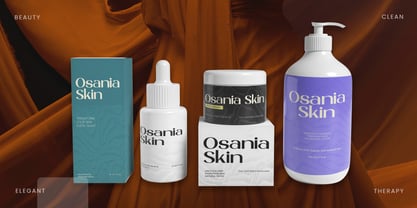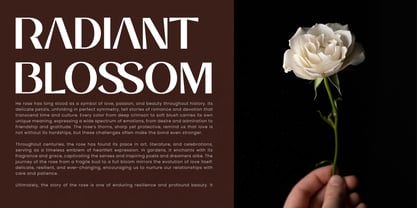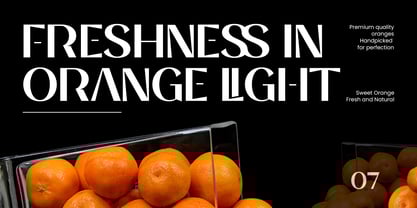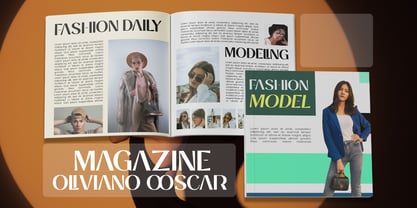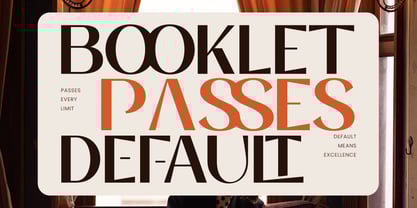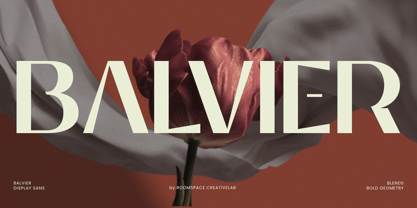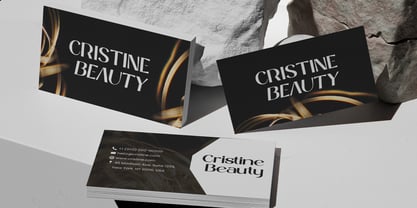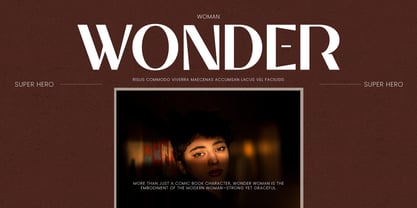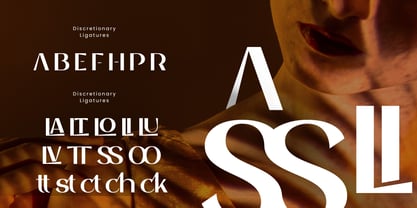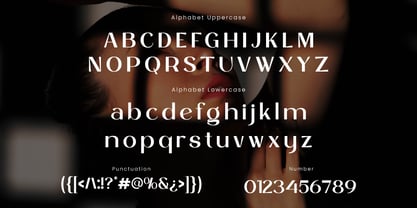
Balvier
by Jafar07
The Balvier Font Family was designed by Bakhrudin Ja'far and published by Jafar07. Balvier contains 2 styles and family package options.
Balvier is a modern display sans serif that blends bold geometry with a refined luxury aesthetic. Designed to make a statement, Balvier carries a sleek and sophisticated vibe that instantly elevates any project. With its strong lines and timeless appeal, this font is perfect for brands that want to stand out with confidence and elegance.
Crafted with attention to detail, Balvier offers smooth kerning, balanced proportions, and a clean typographic flow. The bold and structured letterforms are versatile yet distinctive, making it a reliable choice for both digital and print use. Whether you’re creating large headlines, logos, or branding elements, Balvier ensures clarity while maintaining a stylish edge.
Balvier is the ideal font for logos, editorial layouts, luxury branding, packaging, posters, fashion campaigns, social media content, and more. Its modern and powerful aesthetic brings sophistication to any design. If you’re looking for a font that combines bold geometry with a luxury feel, Balvier is the perfect choice to elevate your creative projects.
About Jafar07
A little from my personal design & background: My name is Bakhrudin Ja'far, I live in Malang, Indonesia. I am currently completing my degree in visual communication design and I have worked as a lettering artist and logo designer for many years. I finally started my studio called roocspace creative lab (jafar07) Studio a few months ago and with my team made my letters into typography.